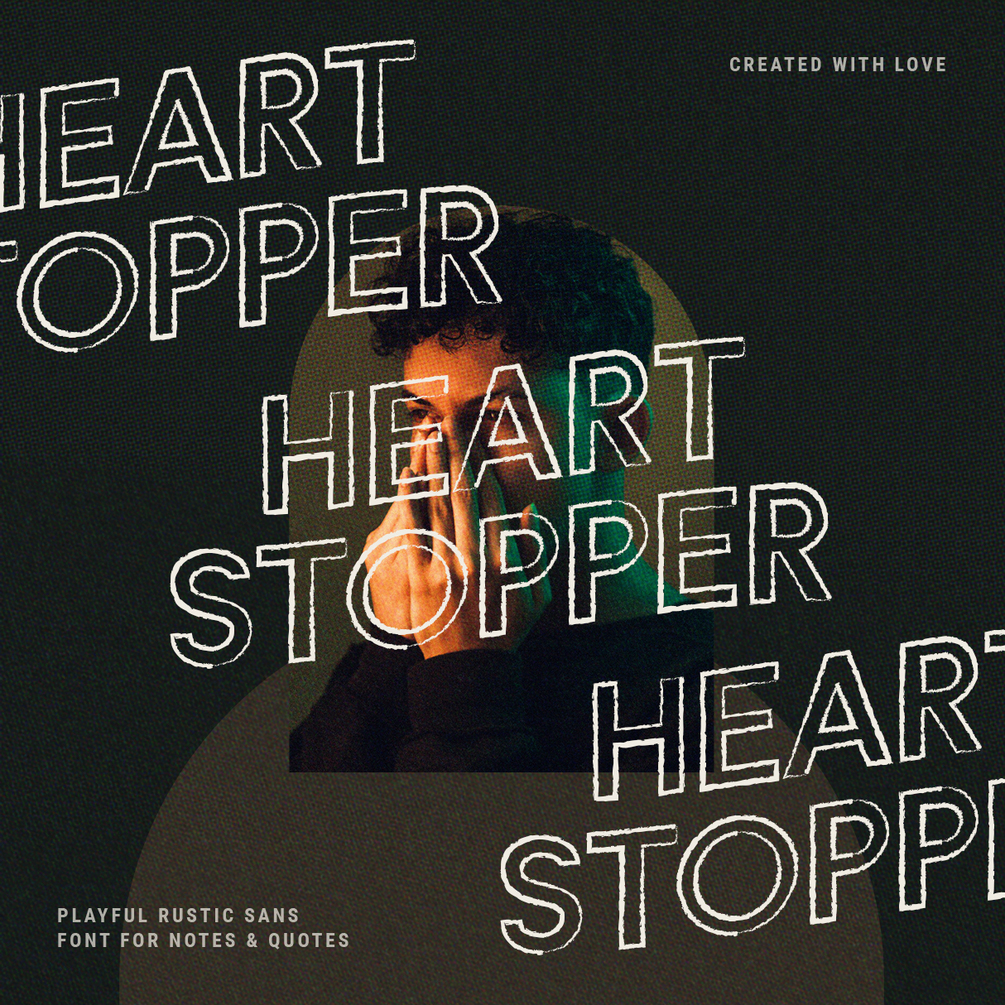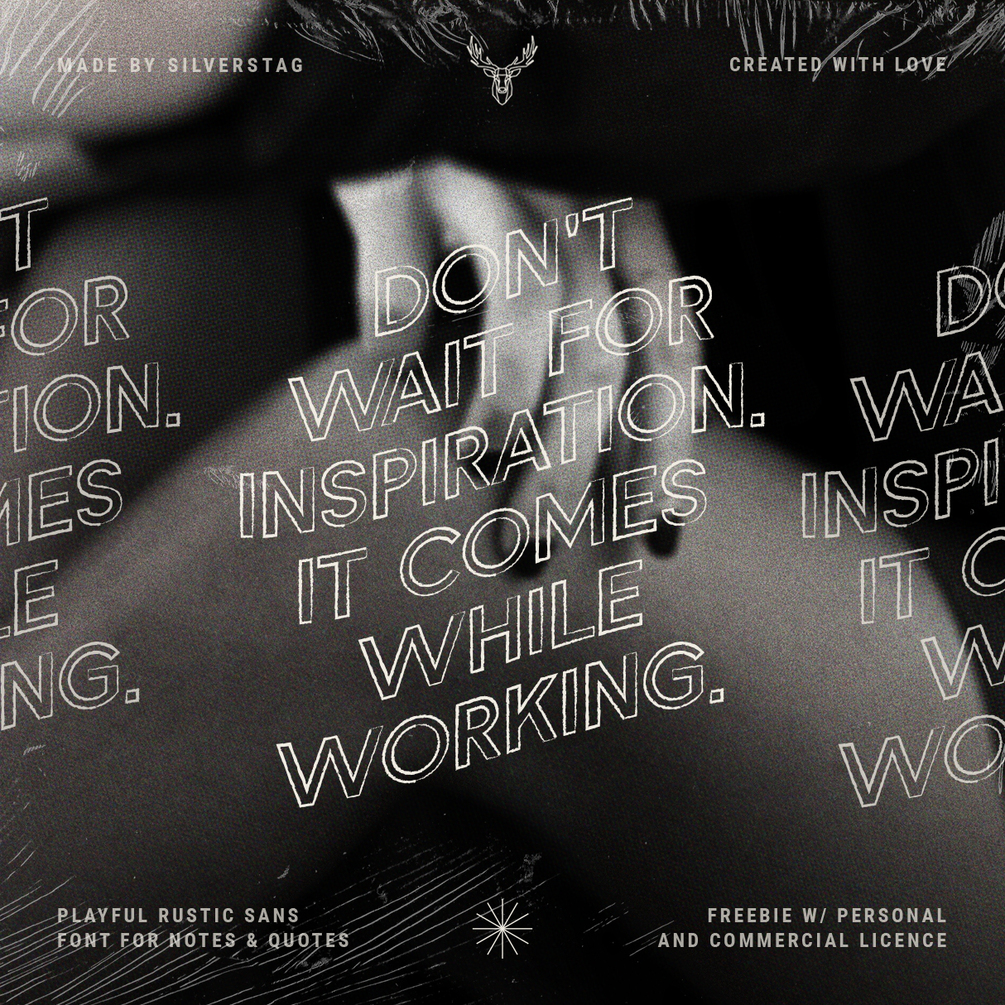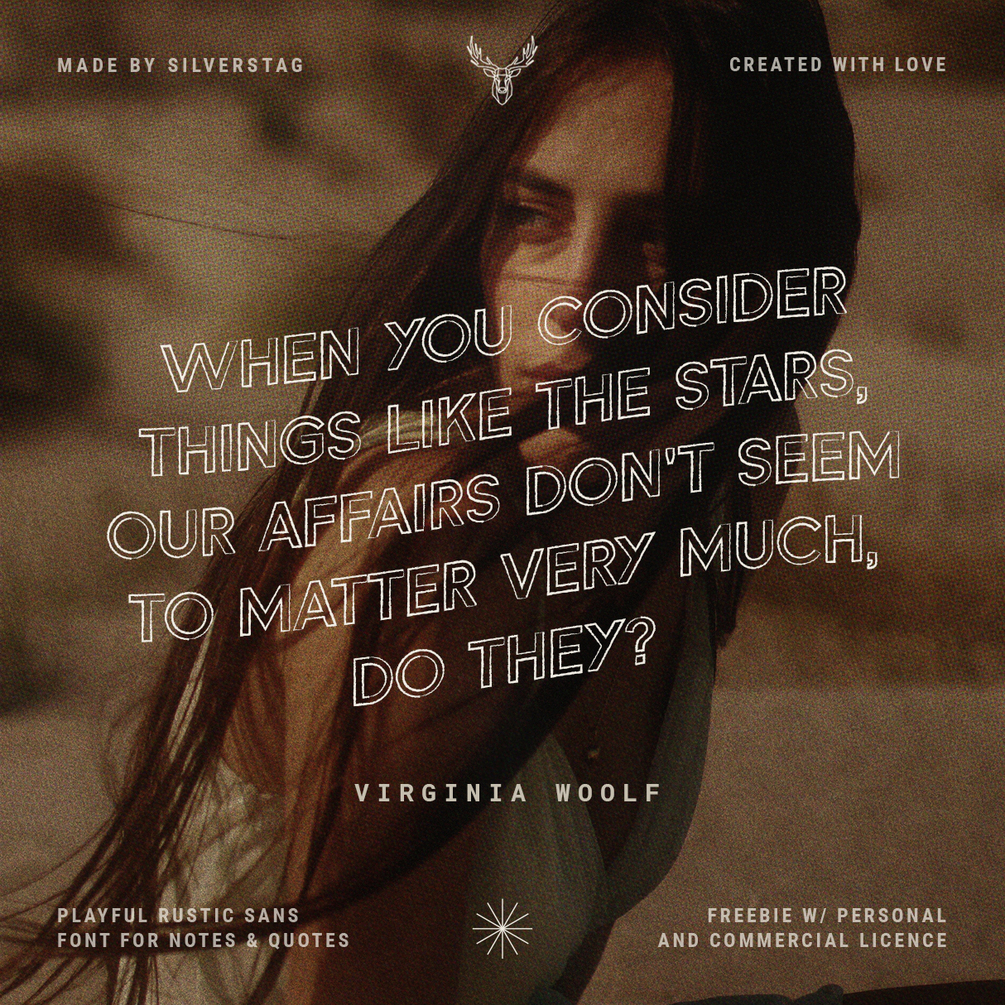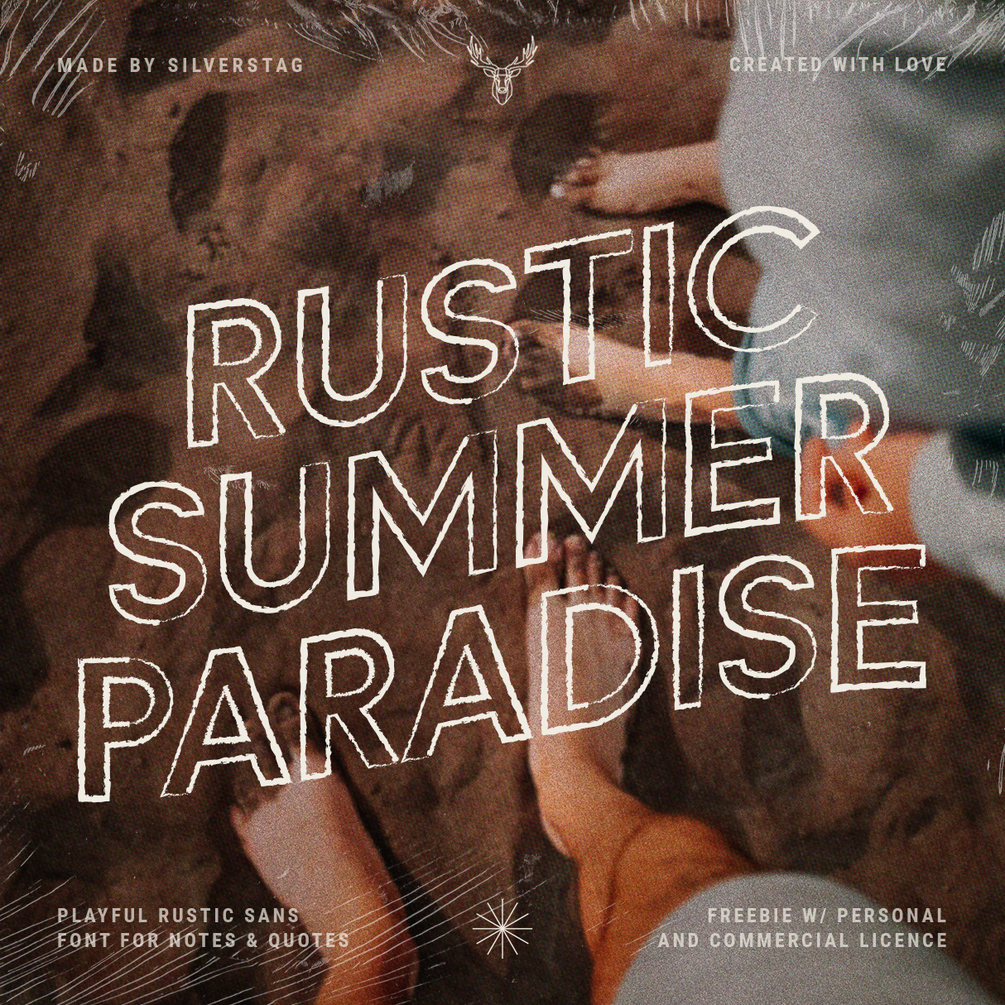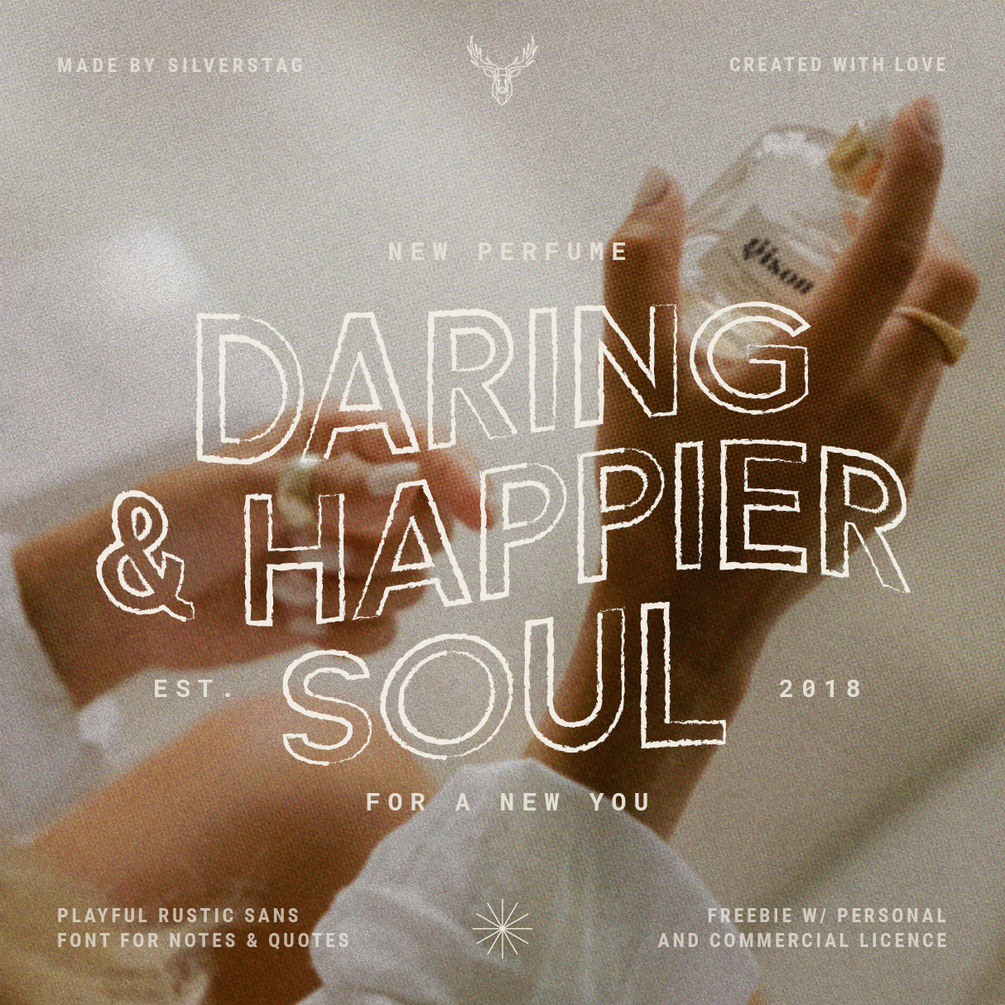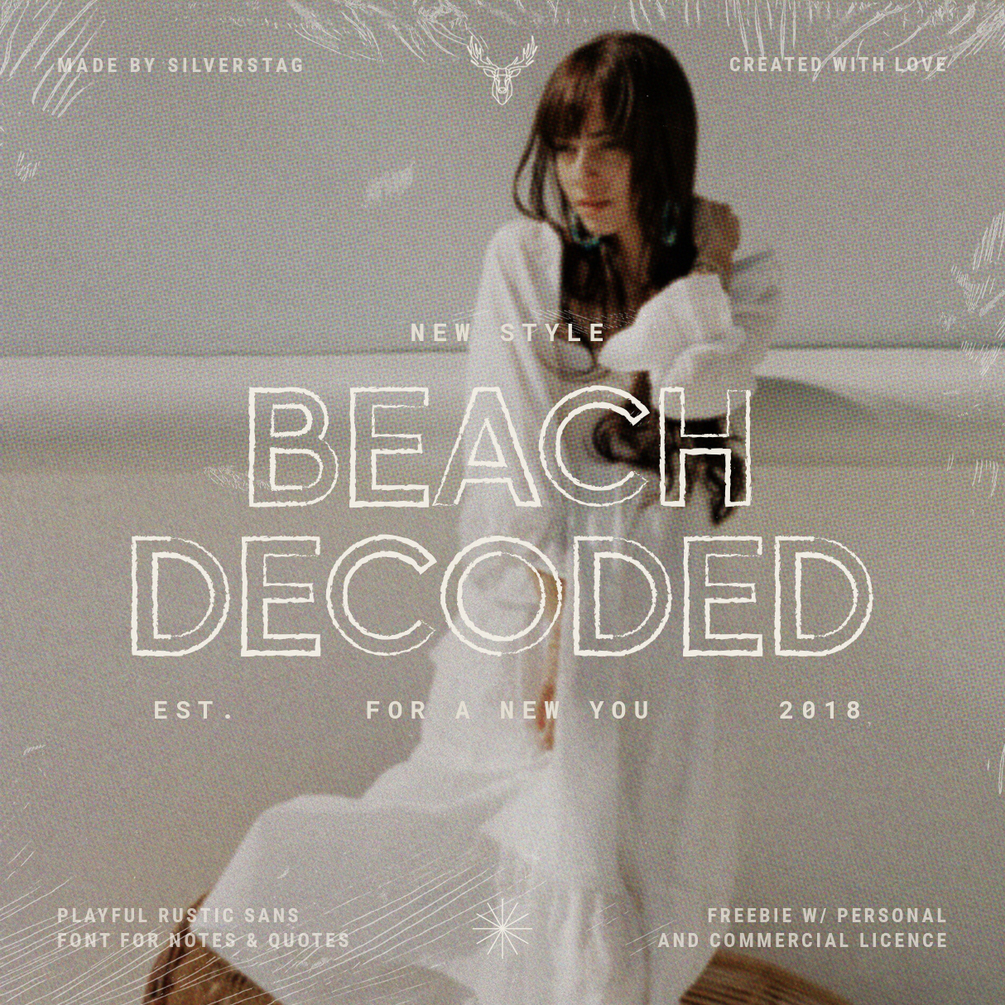
Rustic Summer Paradise Font Demo
Rustic Summer Paradise is an uppercase only free demo font that also includes numbers and symbols. Very soon, a full version of this font will be released with three different weights, a solid and a solid rustic version; and it will be available for purchase in the shop. In the meantime you can all enjoy this creative free demo and use it for all your personal and commercial projects.